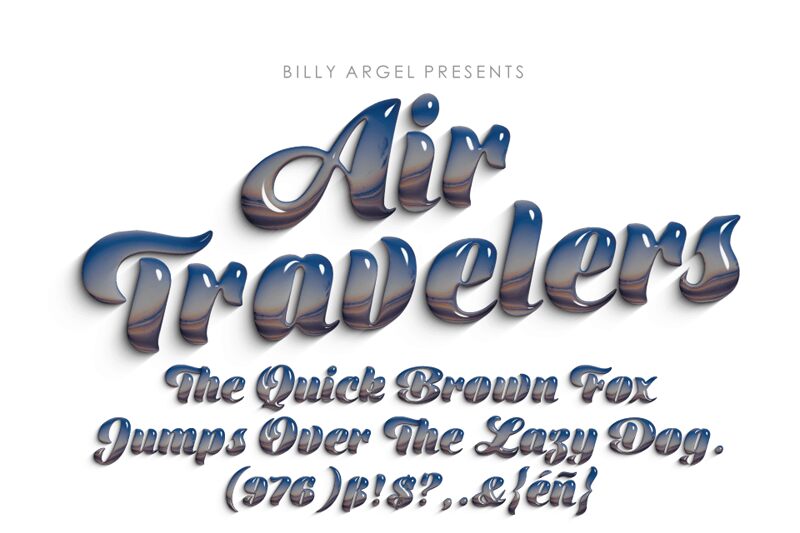
Air Travelers BdIt font by Billy Argel Fonts is a free script display font with flowing characters in a classic vintage style. Expressive, elegant, and groovy, this bold font pays homage to traditional calligraphy handwriting.
Use it to build eye-catching logos, beautiful posters, stationery items such as business cards and envelopes, book covers with matching fonts for titles and content texts. Promote brands across different platforms by using the typeface for ads or social media posts and stories.